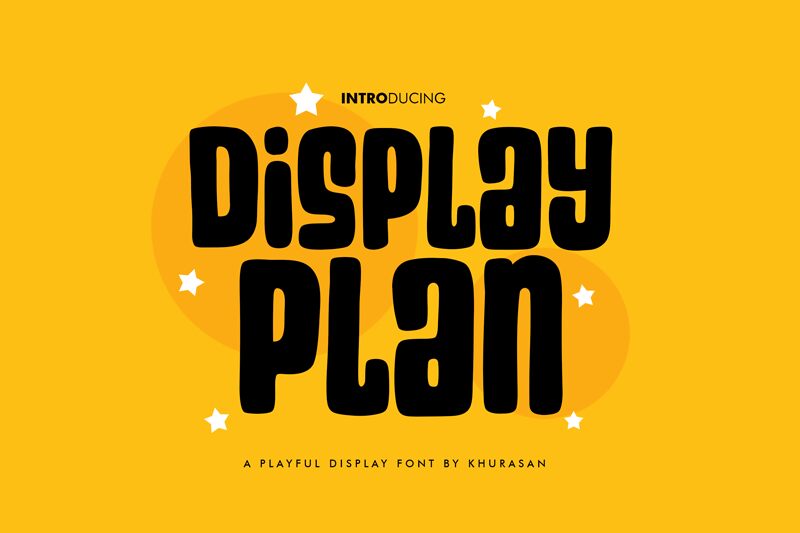
Display Plan font family is a free font family that embodies cartoonish vibes in softly rounded, bubbly letters. It features a dynamic, energetic, informal style reminiscent of retro typefaces from ads and posters. The two font styles offered by the font designer Khurasan accord you a few different ways to experiment with your typography!
Use Display Plan for your illustration projects, websites, and mobile applications. Let its friendly approachable letters adorn your branding and packaging projects. Other contexts where this font feels at home include advertising, poster design, publication design, greeting cards, and more.